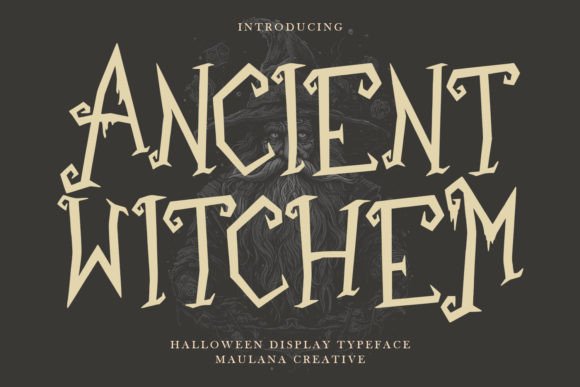
The Magic of Ancient Witchem Font: A Designer’s Delight
I’ll never forget the time I was working on a Halloween-themed project for a client, and I just couldn’t find the right font to capture the spooky yet elegant vibe they were looking for. I scoured the internet, tried out countless fonts, but nothing seemed quite right. That was until I stumbled upon the Ancient Witchem font. It was like a breath of fresh air – the perfect blend of eerie and sophisticated. In this article, I’ll share my experience with this amazing font, its features, and how to make the most of it in your designs.
An Honest Review of Ancient Witchem Font
- ✨ Unique and quirky design that’s perfect for Halloween-themed projects
- ✅ Highly versatile – works great for logos, social media posts, movie titles, book titles, and more
- 🔥 Excellent for creating eye-catching headlines and titles
While Ancient Witchem font is an excellent choice for many projects, there are a few things to keep in mind:
- ⚠️ Some characters may not work well in very small sizes, so it’s best to use it for headlines or titles rather than body text
- 🤔 Limited availability of certain special characters, so be sure to check the font’s capabilities before using it for a specific project
The Backstory of Ancient Witchem Font
Legend has it that Ancient Witchem font was inspired by ancient witchcraft and mysticism. The font’s creator, a talented designer with a passion for the occult, wanted to capture the essence of magic and mystery in a typographic form. The result is a font that’s both eerie and elegant, perfect for designers looking to add a touch of whimsy to their work.
Q: What type of projects is Ancient Witchem font best suited for?
A: Ancient Witchem font is perfect for Halloween-themed projects, logos, social media posts, movie titles, book titles, and more.
With Ancient Witchem font, the design possibilities are endless. Whether you’re a seasoned designer or a creative hobbyist, this font is sure to add a touch of magic to your work. So why wait? Get creative and make something stunning with Ancient Witchem font!